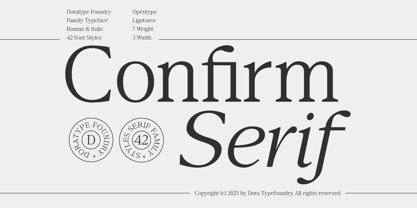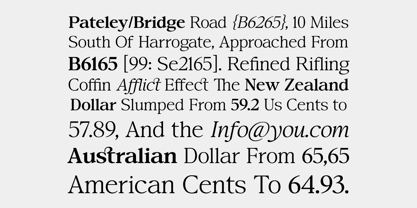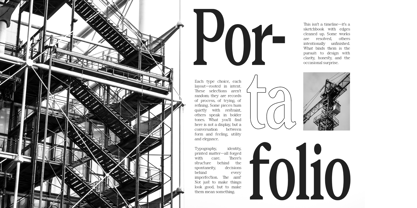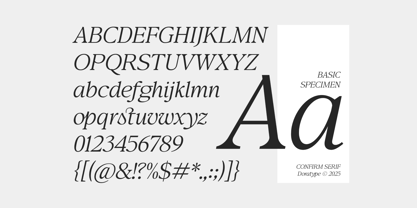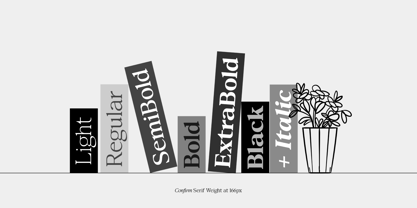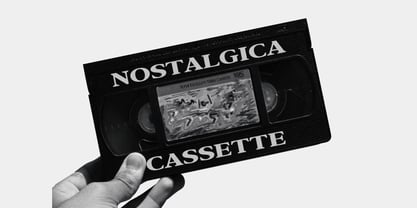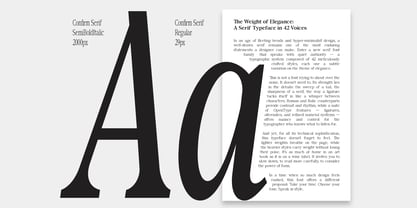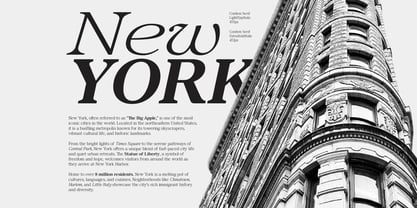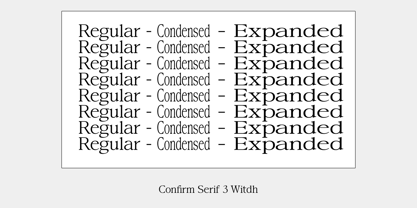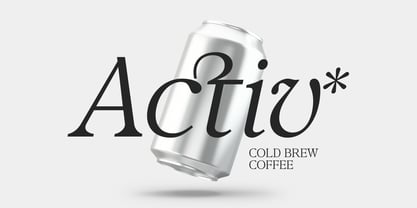
Confirm Serif
by Dora Typefoundry
The Confirm Serif Font Family was designed by Zahratul Laila and published by Dora Typefoundry. Confirm Serif contains 44 styles and family package options.
Confirm Serif is a classic serif typeface family with a modern twist. Its letterforms combine elegant proportions and structural rigor, creating a bold yet refined look. Its Roman and Italic characters feature harmonious bold-thin contrasts, with neat and precise serif details, giving a professional yet artistic impression. Available in 42 different styles with 7 weights and 3 width variations, Confirm Serif is designed for high flexibility, whether for long, comfortable text or attention-grabbing headlines. Support for OpenType features and ligatures makes it even more visually rich, making it the perfect choice for editorial design, branding, and premium typography.